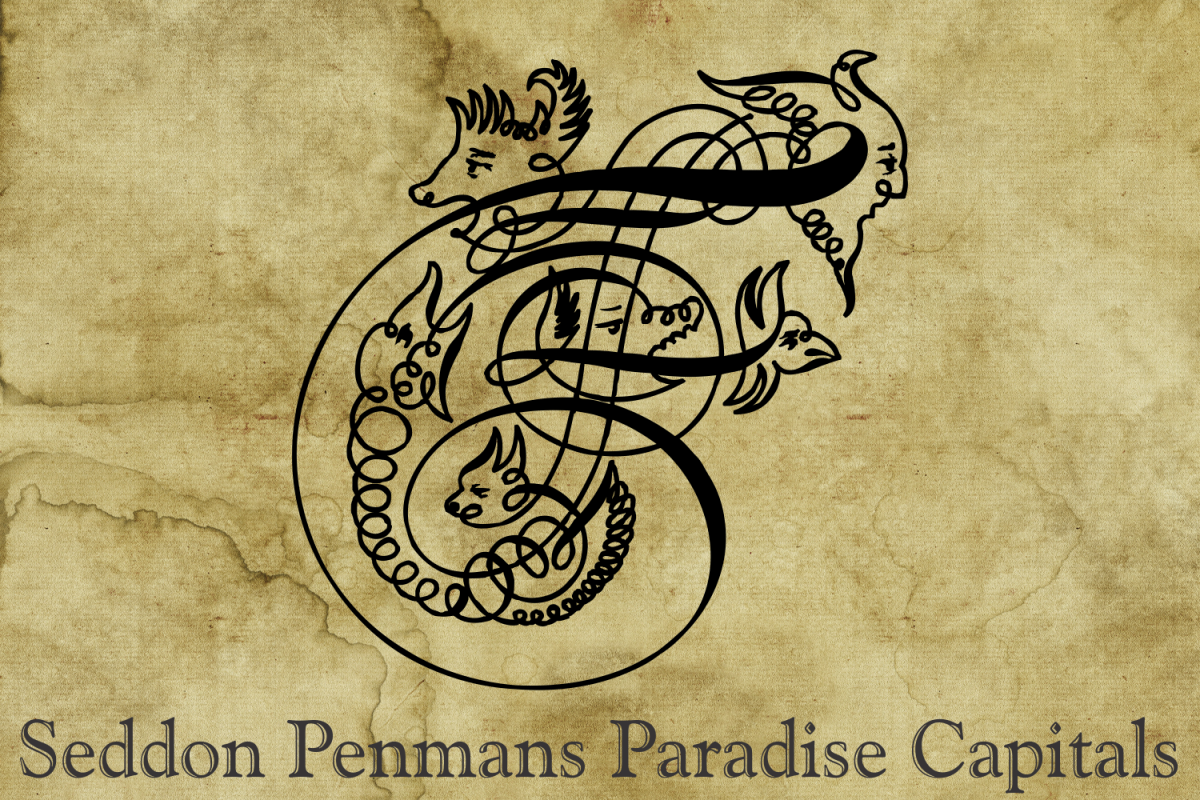
Seddon Penmans Paradise Capitals
Seddon Penmans Paradise Capitals is a historical and highly decorative display font great for posters and headline use.
John Seddon (1644-1700), was a famous English writing master, the leading calligrapher of his time, and master of Sir John Johnson’s Free Writing School in Priest’s Court, Foster Lane. His portrait was drawn by William Faithorne and was engraved by John Sturt as the frontispiece for his copy-books, such as ‘The Ingenious youth’s companion’ of c.1690 and 'The pen-man’s paradise' of c.1695. These were engraved after his work by others.Your extra-rare book -"The Pen-mans Paradise Both pleasent & Profitable OR Examples of all ye usuall hands of this Kingdome. Adorn'd with variety of ffigures an Flourishes done by Command of hand. Each ffigure being one continued & entire Track of the pen most where of may be struck as well Reverse (or to answer bothwayes) as Forward", London (1965).- (YES, that is the title of the book!) was the starting point to these new extra accurated works of Iza W, a series of revivals of the penmanship Seddon’s artworks, like this highly ornamented animal kingdom inspired capitals and alphabets: the Seddon Penmans Paradise Capitals typeface. And, on the other hand, you can get the animal and human kingdon inspired penmanship forms in the Bestiario font. The “SeddonsFleurons” will complete the collection.Fantastic choice to elaborated barocque/renaissance inspired and historical accurated layouts.